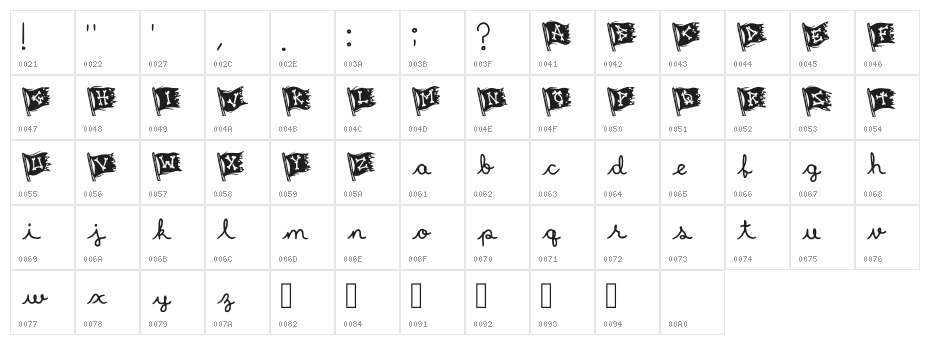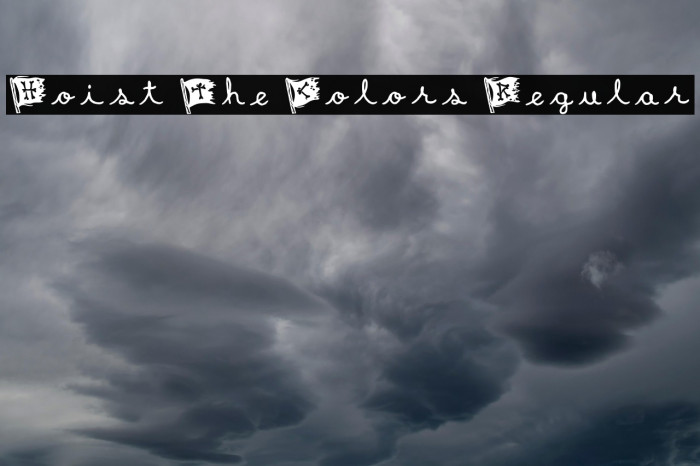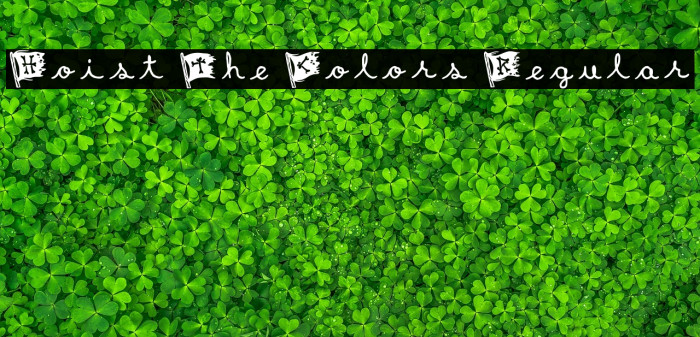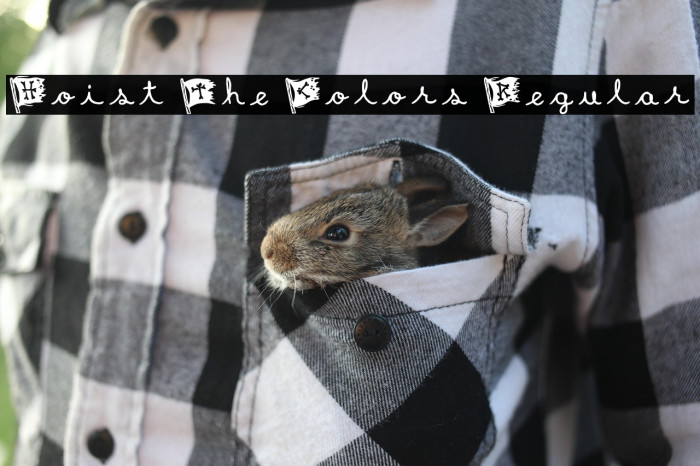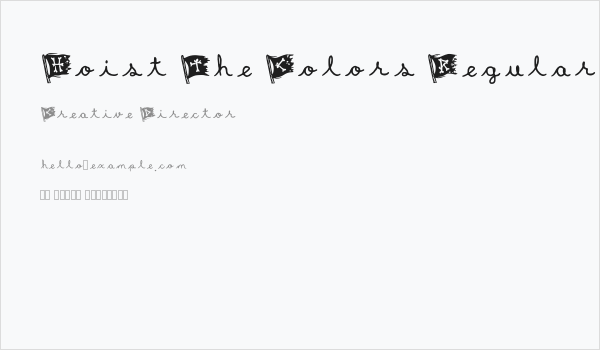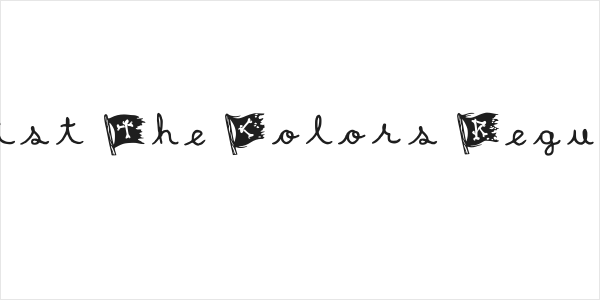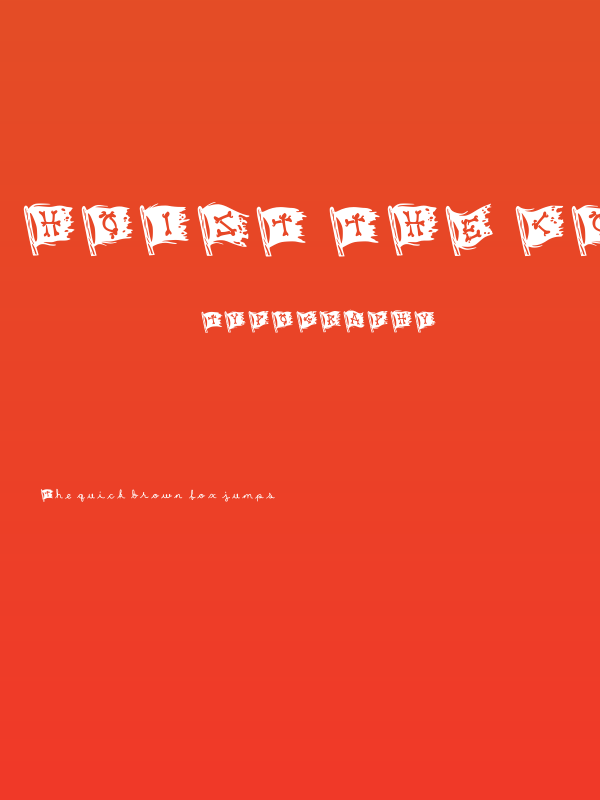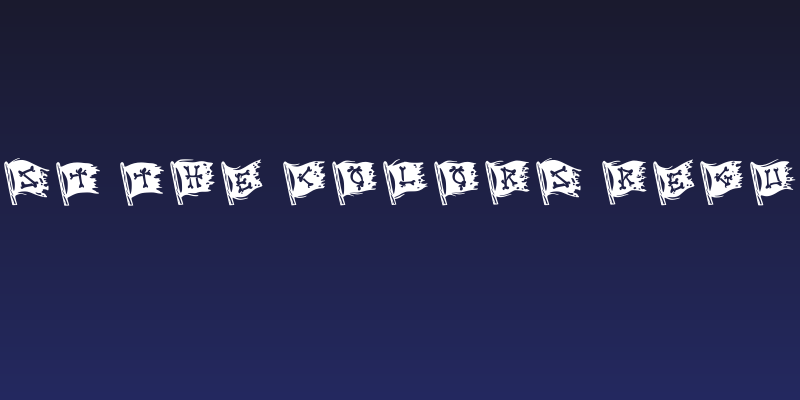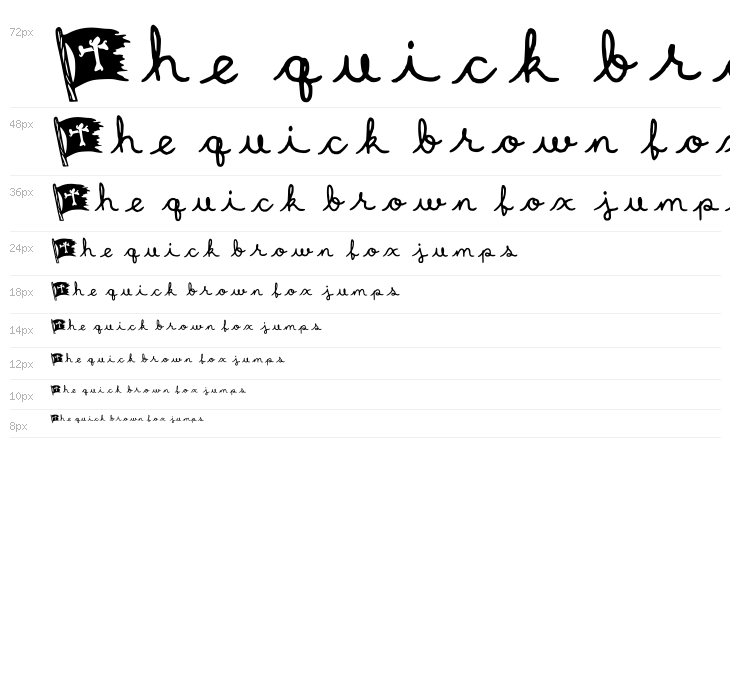
Hoist The Colors Regular Font
Hoist The Colors Regular Description
This font features a unique combination of decorative uppercase letters that resemble flags waving in the wind, creating a dynamic and adventurous feel. The lowercase letters contrast with a smooth, handwritten style, offering a more casual and approachable look. The special characters maintain the decorative theme, adding a playful touch. This blend of styles makes it versatile for creative projects that require both boldness and elegance.
| Proposed Projects | Ideal for pirate-themed events, adventure book covers, themed party invitations, and creative branding. |